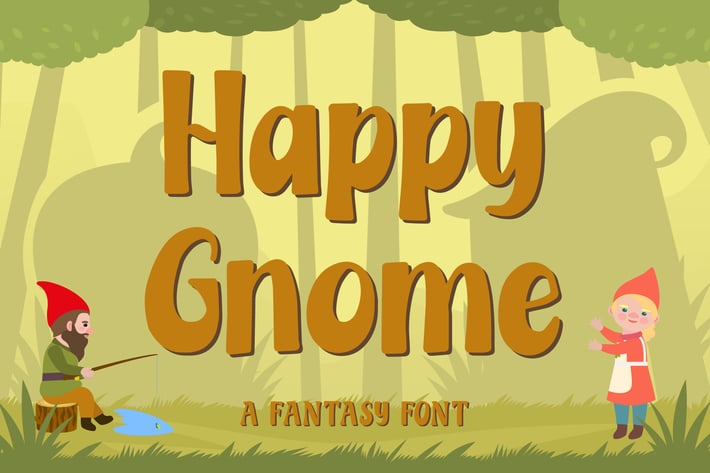
Happy Gnome – Fantasy Font
Happy Gnome is a fantasy font.
Thisfont will be the ideal choice for any children story book, or party design you wish to develop.